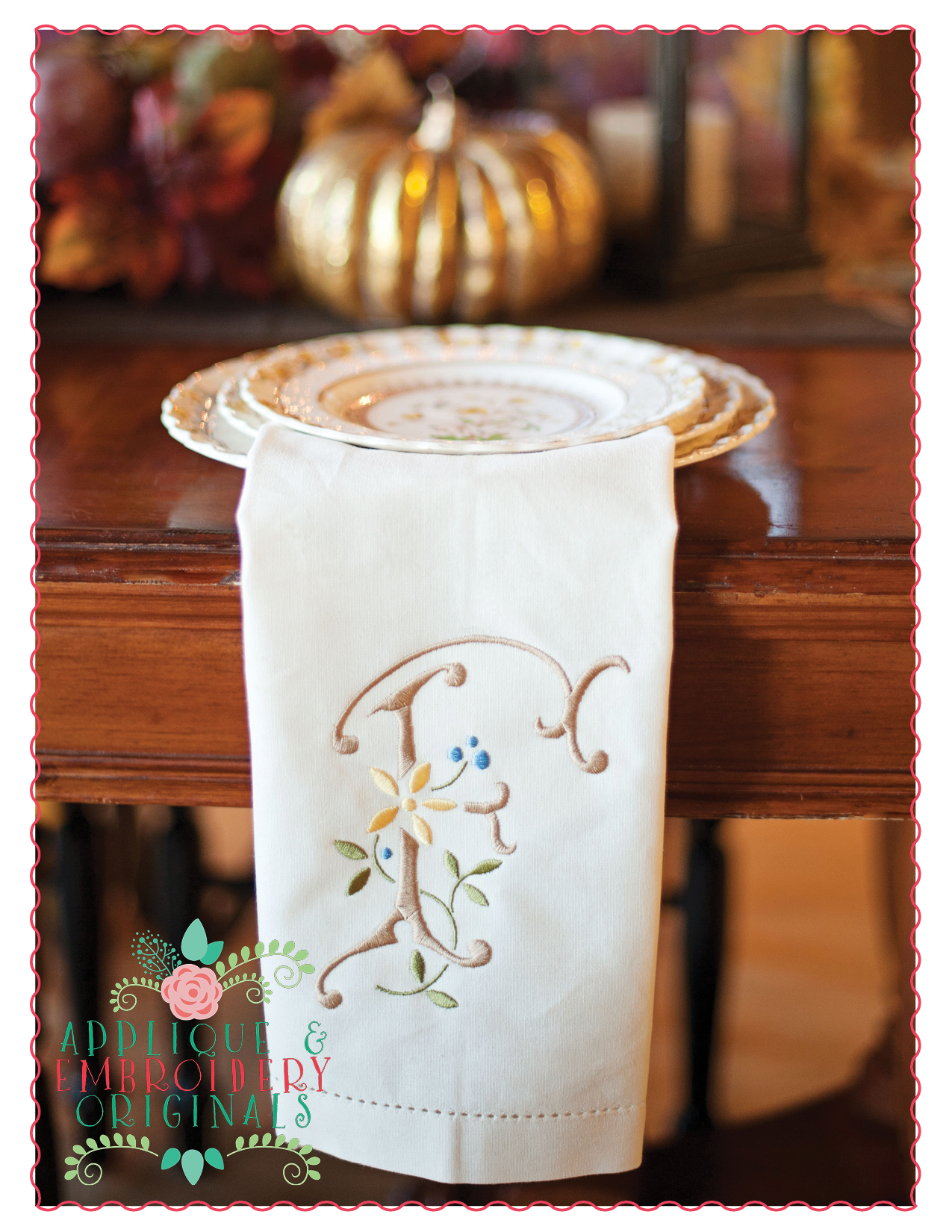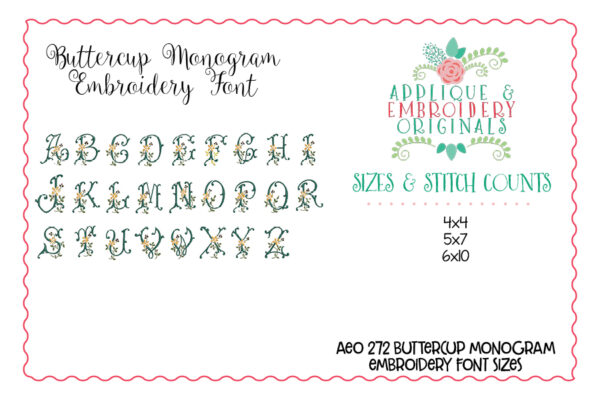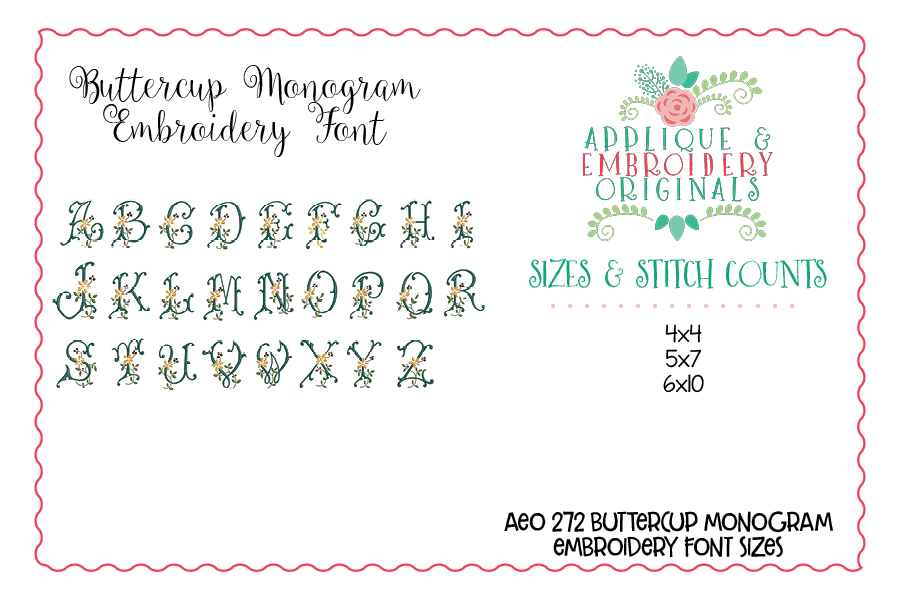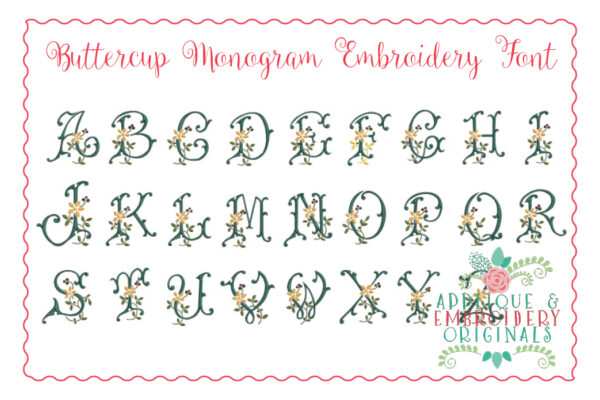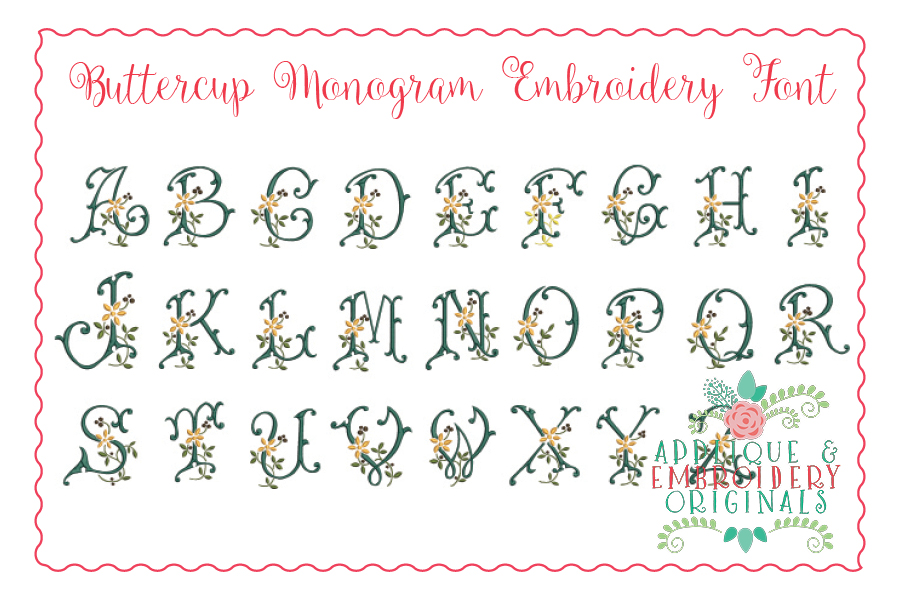
272 Buttercup Monogram Embroidery Font for embroidery machine. Perfect for your shirt, bag, towel or other item!
Designs comes in sizes 4×4, 5×7 and 6×10. All letters are satin stitch.